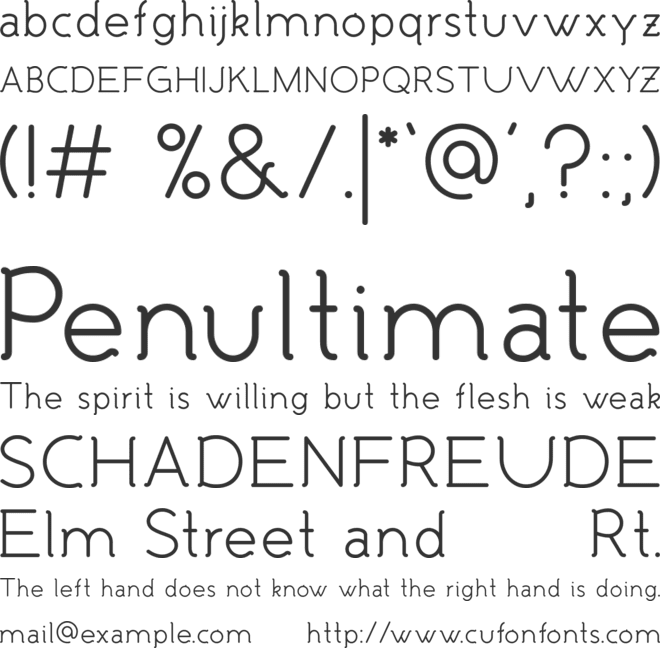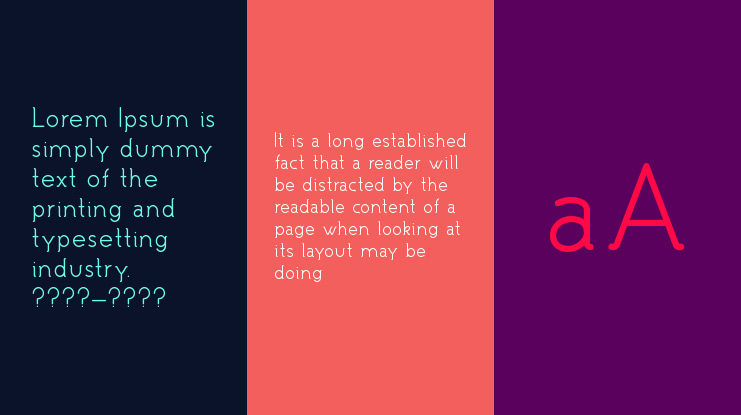
Malandrino Font Family
Malandrino is a Decorative Font.
In this font the playful rounded Serifs pop out from the geometric shapes, giving a nice lively feeling.
It could be called a Geometric Serif Font with remarkable Display characteristics, but it also fit in long text blocks.
The height difference between Uppercase and Smallcase make it more suitable for Typography than Web.
Malandrino Family:
Malandrino Regular
Malandrino Bold
Malandrino Light